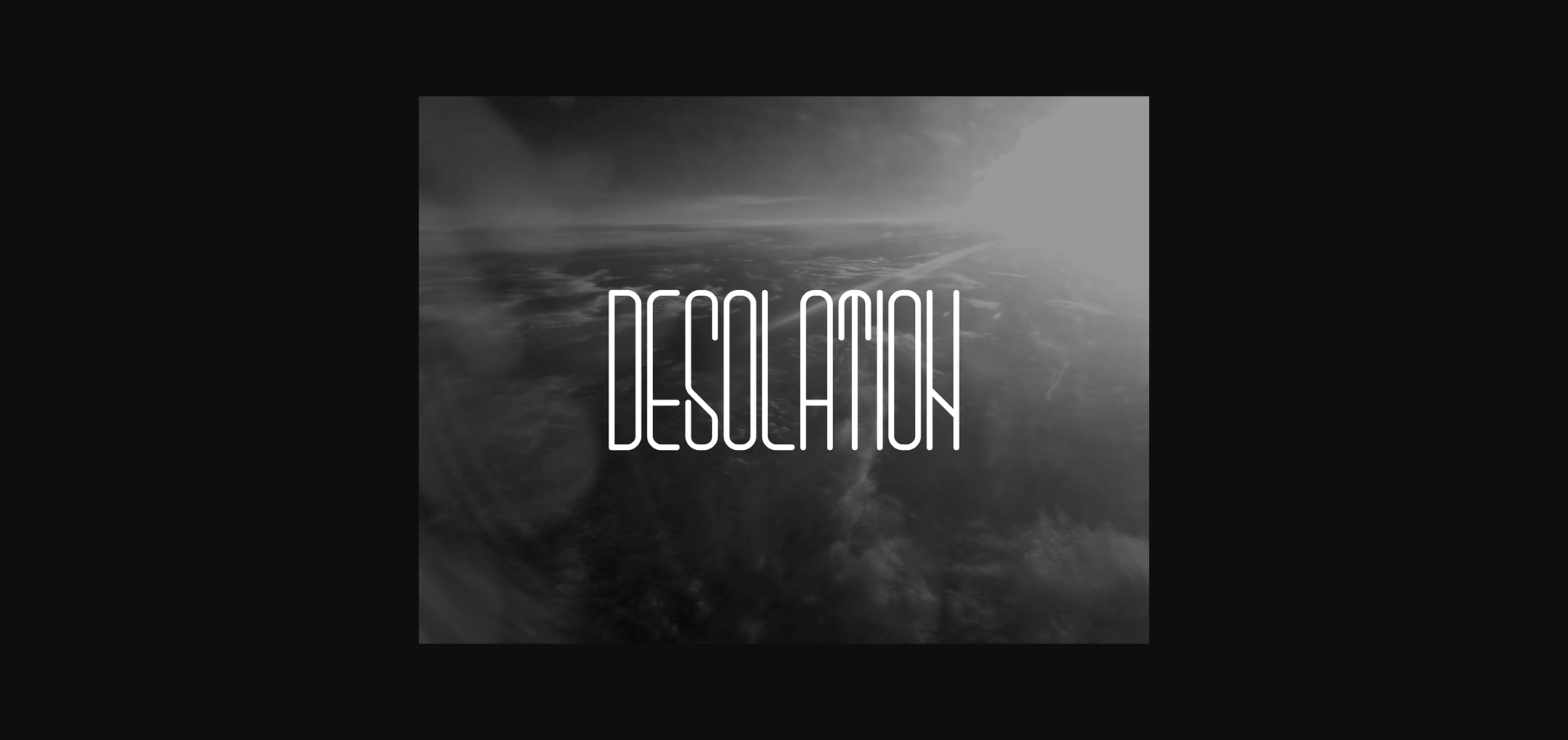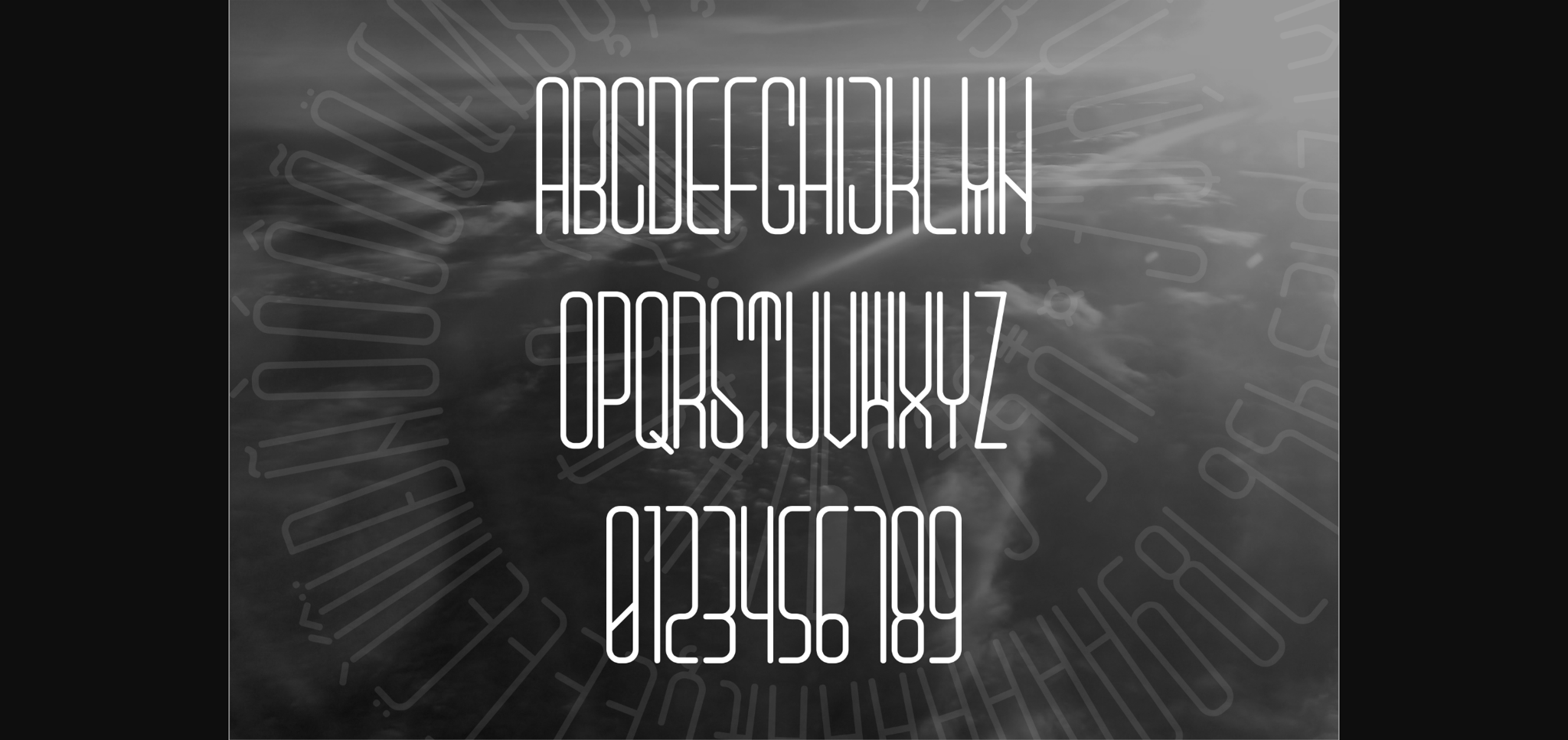
Desolation Font
About Desolation Font
Desolation is a narrow, all caps, futuristic sans-serif font. It will complement any design need perfectly with its perfectly balanced mix of the smooth and sharp!